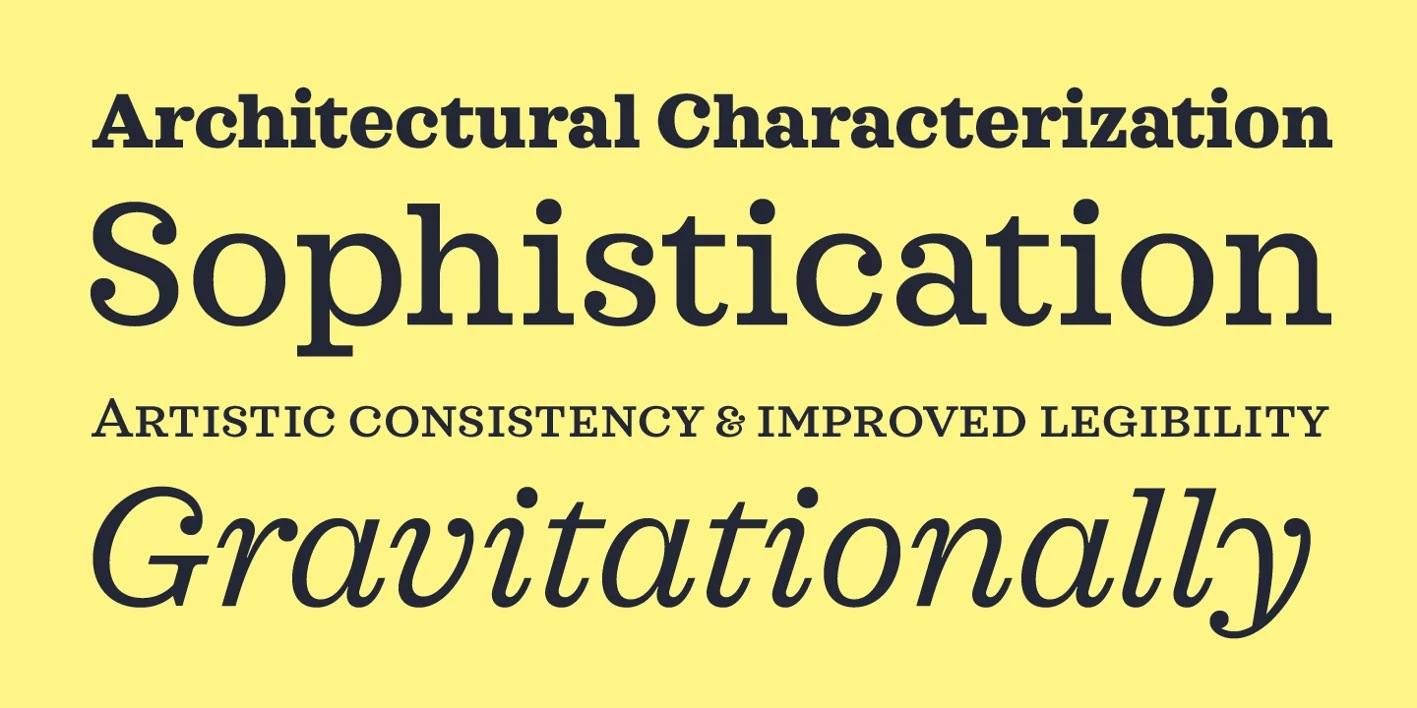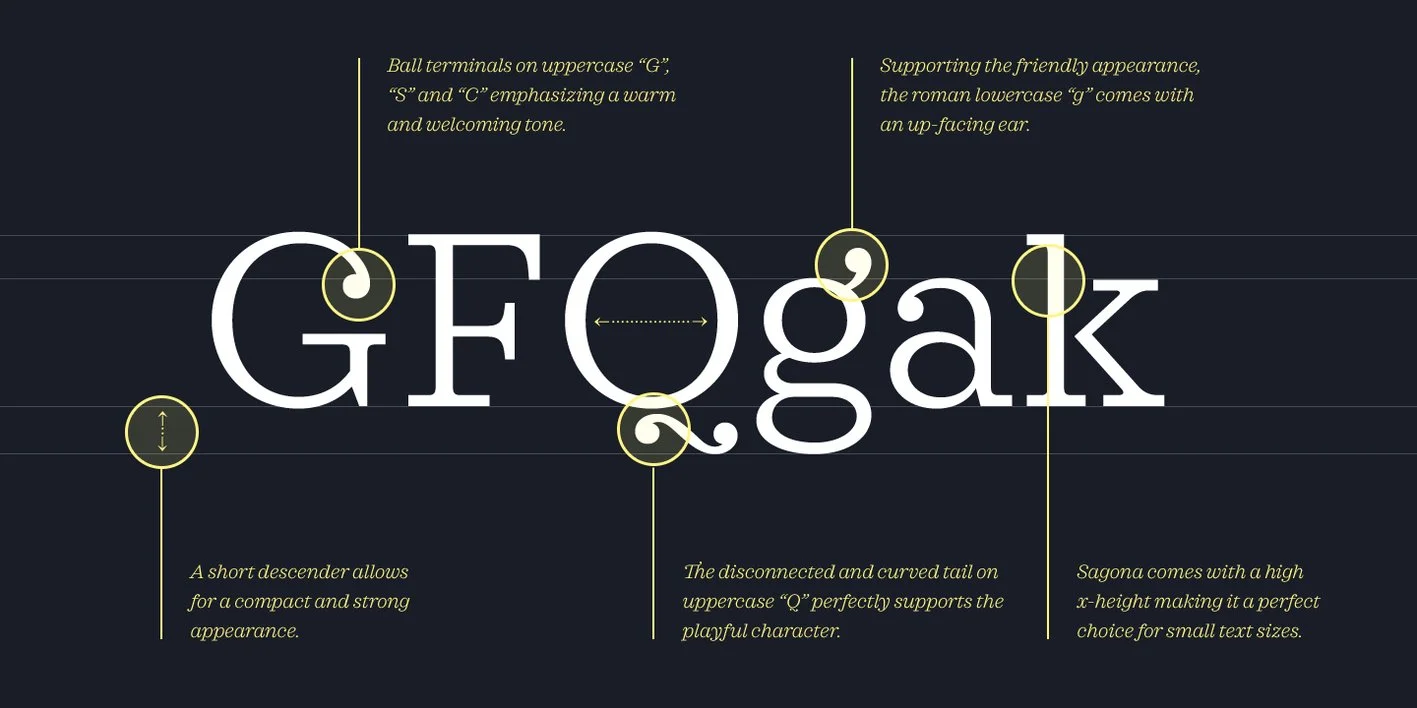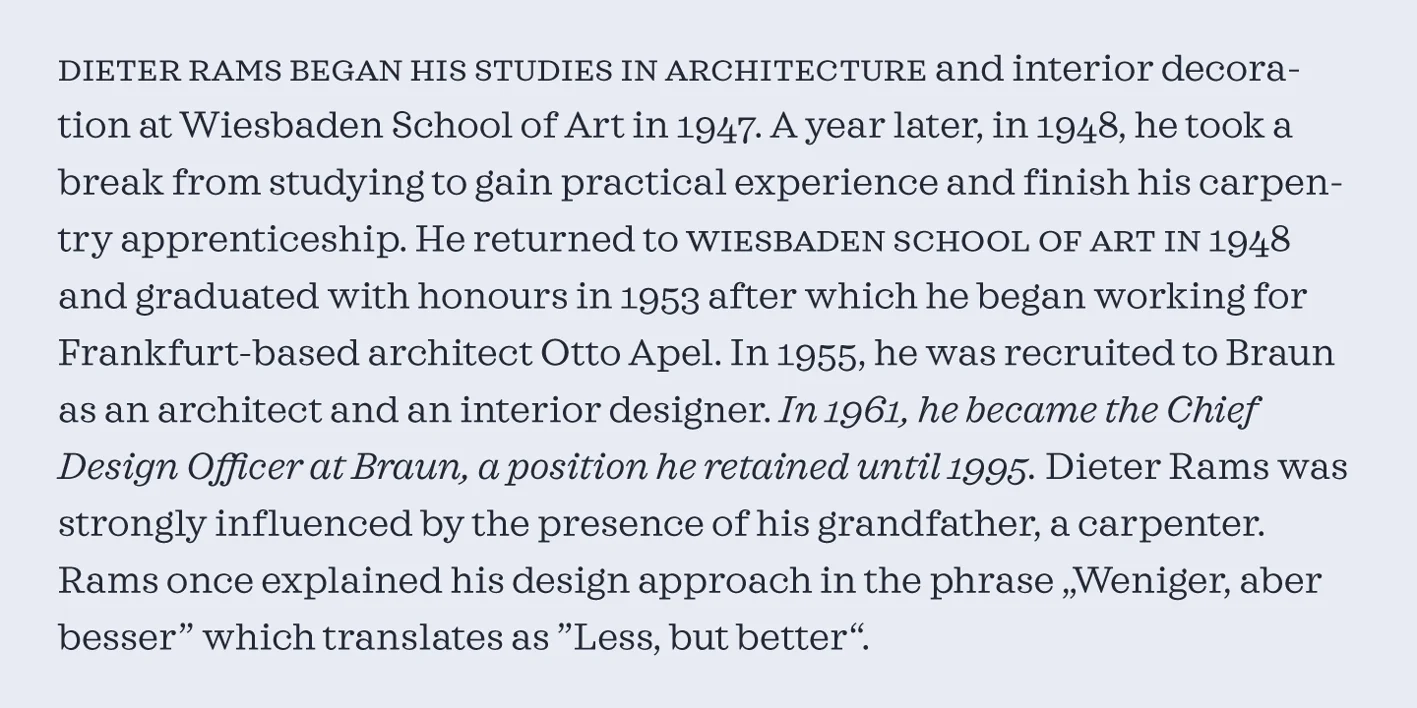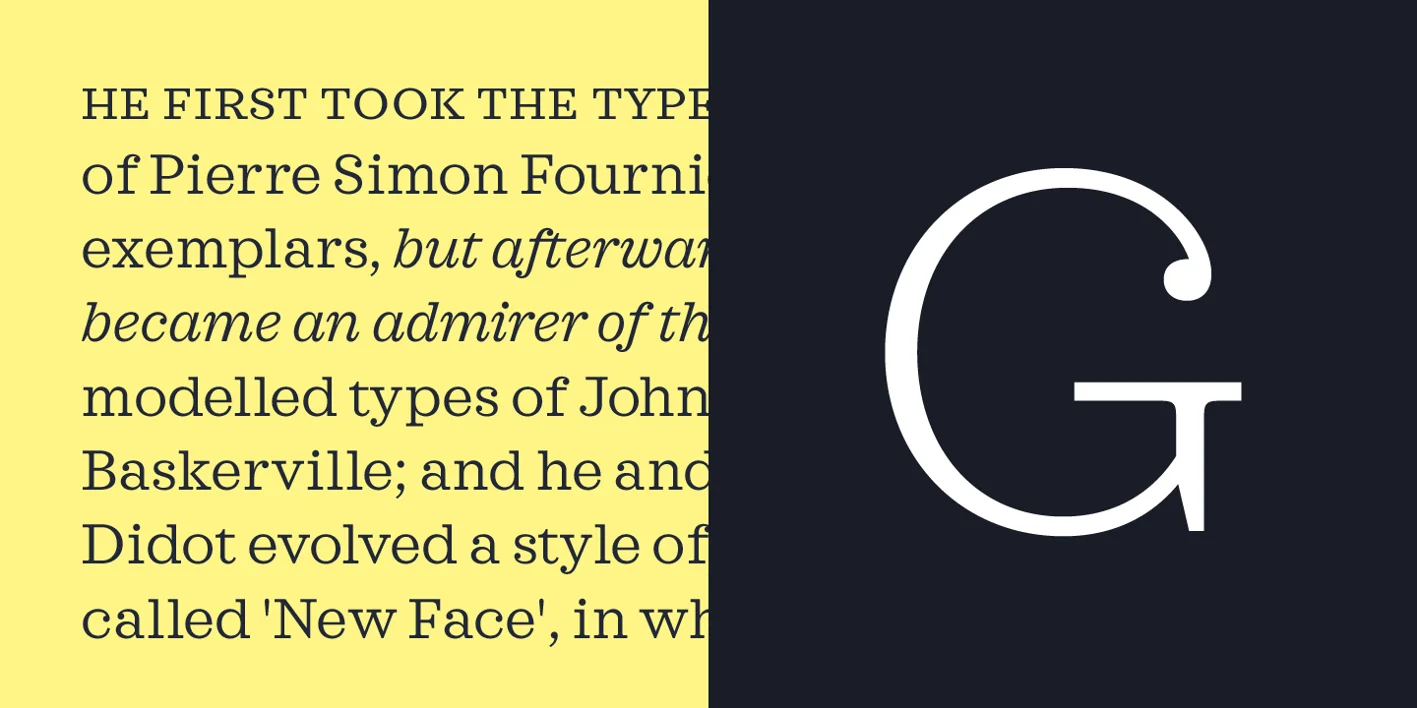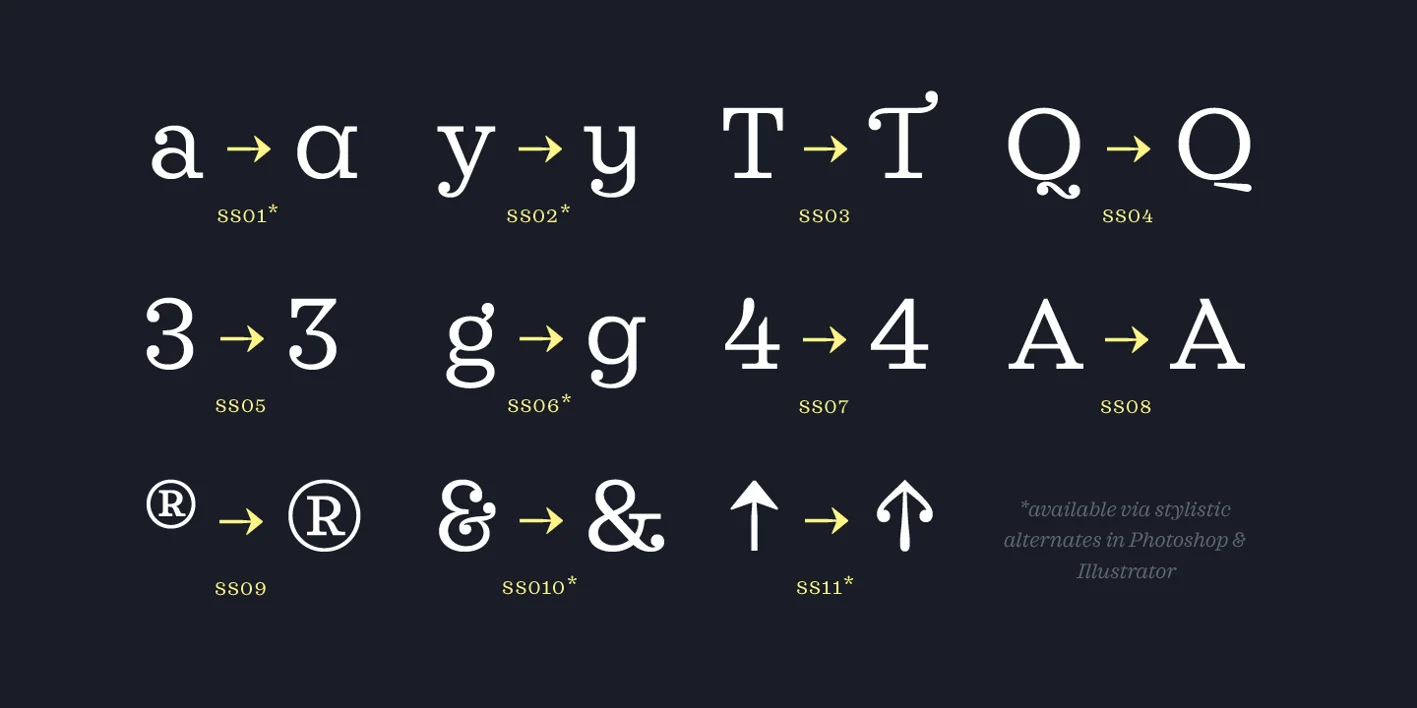
Sagona Font
When a design brief calls for both the kind of restraint that lets content lead and immediate visual impact, type choices matter — Sagona answers that brief. The typeface brings a versatile sensibility to a broad range of creative disciplines, with optical balance across all weights that holds up whether the work is print-first or screen-first.
In practice, Sagona proves particularly effective for poster creation, packaging design, logo design, web design, annual reports. Designers reaching for it find that the type decisions feel resolved rather than laboured — a useful quality when client timelines are tight.
The range of applications extends to brand identity systems, signage systems, product labels, editorial layouts. That breadth is deliberate: the proportions and spacing were stress-tested across a wide range of mock briefs before the typeface was finalised.
Motion designers building title sequences and lower thirds find Sagona a reliable choice for projects that demand both personality and restraint. The design avoids the self-conscious quirkiness that dates quickly, settling instead for considered distinctiveness that holds up over time.